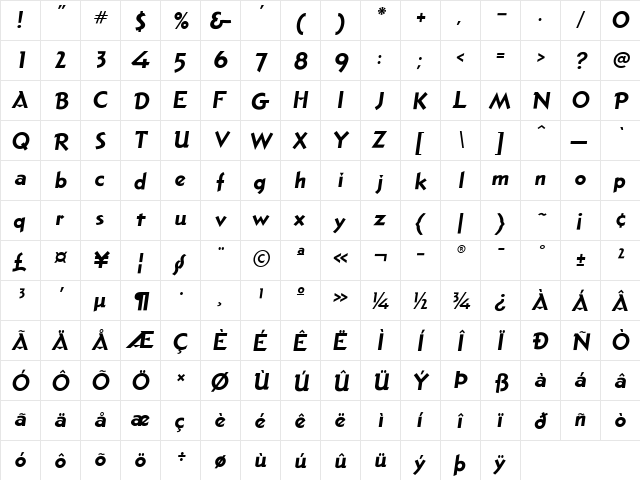
Pacific Regular Font Preview
Pacific Regular
Pacific Regular Font Details
Design Context for Pacific Typeface
Pacific takes a measured approach to typography — its balanced proportions and neutral character make it a reliable workhorse for both digital and print work.
Pro Tip: Use Pacific in both headline and body roles to test its range before committing to a single application.